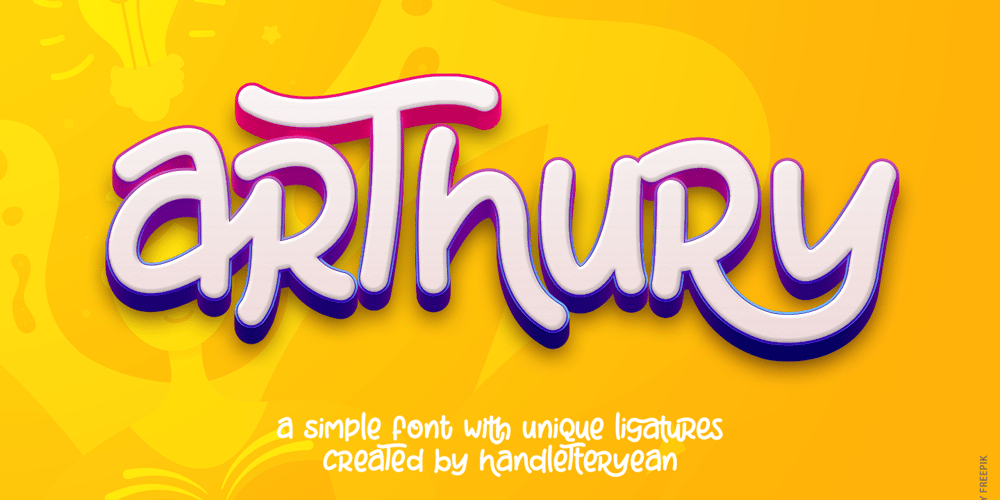
Arthury
Arthury font
Arthury Font Family was designed by Yean Aguste and published by HandletterYean. Arthury contains 1 styles and family package options. Arthury is a simple font with unique ligatures that makes you design more attractive and eye-catching. Feel free to use it on your creative projects such as quotations, decoration texts, prints, packaging, business cards, invitations, posters, labels, and any kind of design. Get this font now, have fun! This also includes multi-lingual support.To access the alternate glyphs, you need a program that supports OpenType features such as Adobe Illustrator CS, Adobe Photoshop CC, Adobe Indesign, and CorelDraw. More information about how to access alternate glyphs, check out this link: http://goo.gl/ZT7PqK